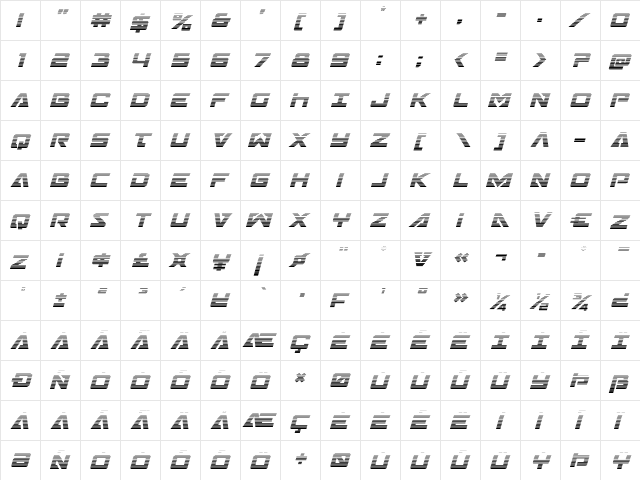
Trans-America Gradient Italic Italic
Design Context for Trans-America Gradient Italic Typeface
Trans-America Gradient Italic is a composed and adaptable typeface that performs quietly and consistently across a wide range of design contexts. The slanted form adds forward momentum and visual energy.
Pro Tip: Try Trans-America Gradient Italic for annotation and caption copy alongside an upright companion — the contrast in angle creates a dynamic but ordered typographic system.